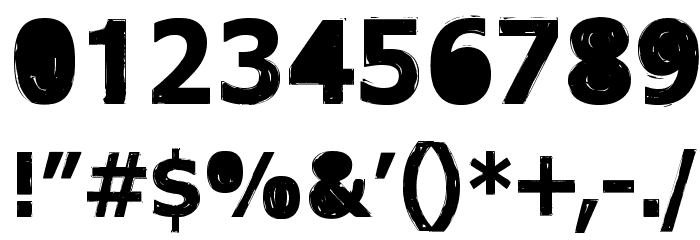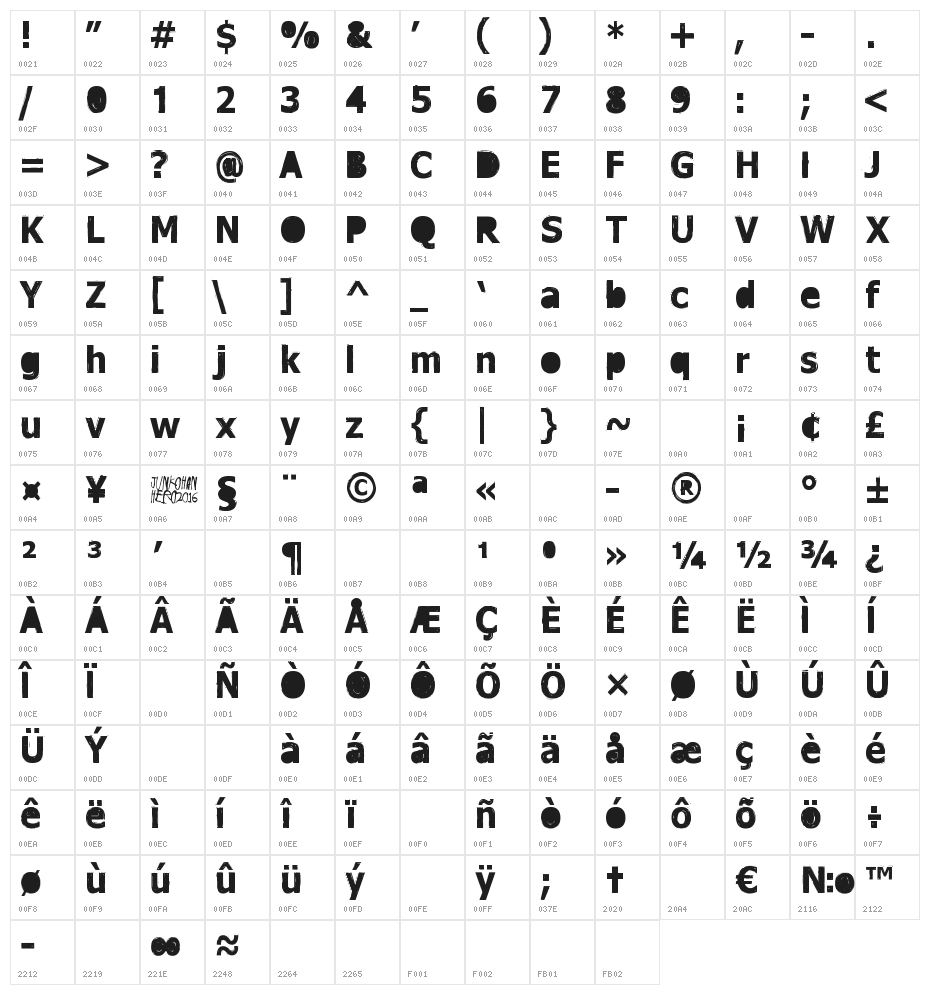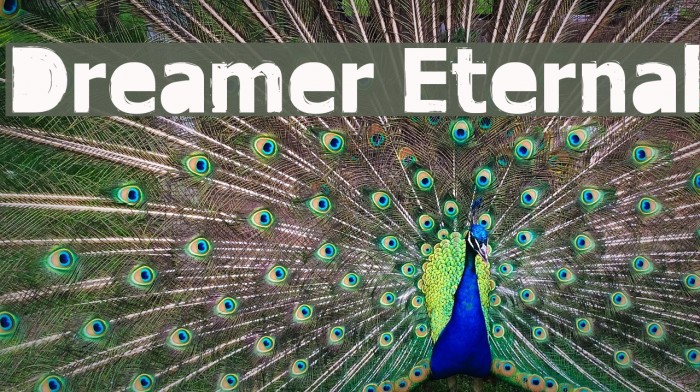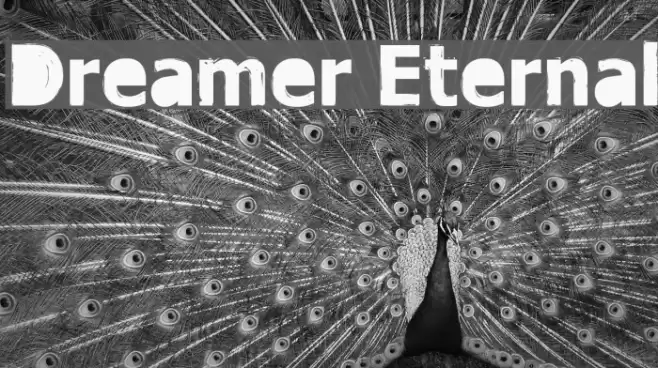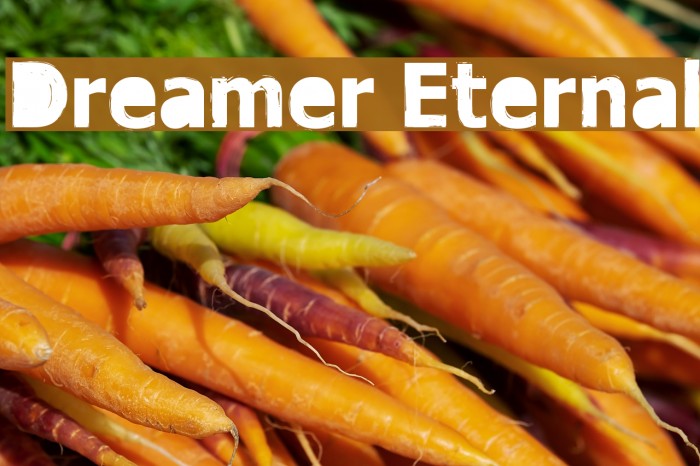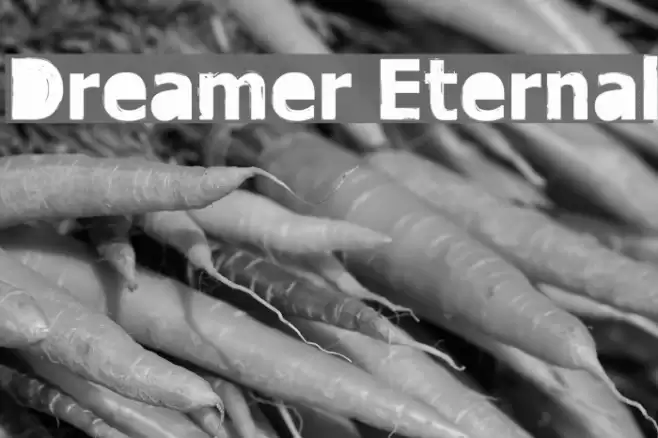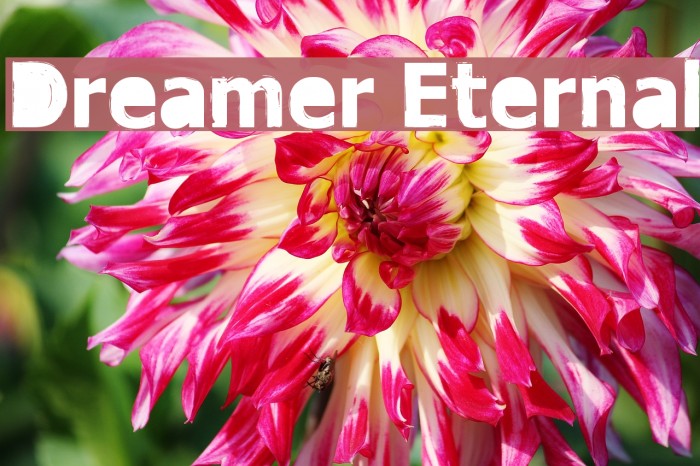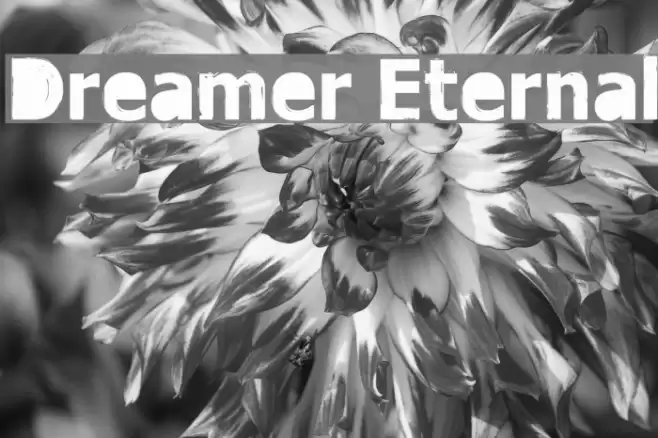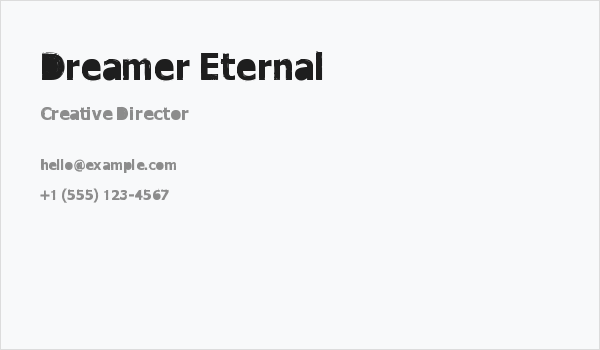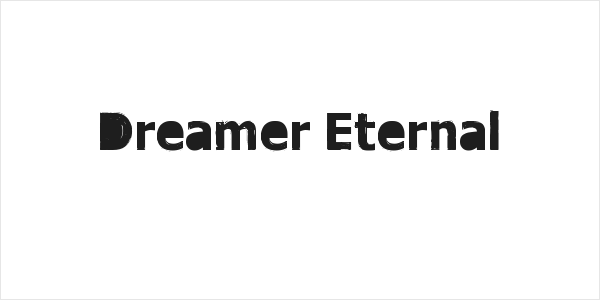
Dreamer Eternal Font
Dreamer Eternal Description
This font features a bold and distressed style, giving it a rugged and textured appearance. The characters are thick and substantial, with irregular edges that create a worn, vintage look. The uppercase and lowercase letters maintain a consistent weight, contributing to a cohesive design. Numbers and special characters follow the same aesthetic, ensuring uniformity across all glyphs. The font's unique style makes it stand out, ideal for projects that require a strong visual impact. Its distressed texture adds character and depth, making it suitable for creative and artistic applications.
| Proposed Projects | Ideal for posters, album covers, branding, and any project requiring a bold, artistic touch. |